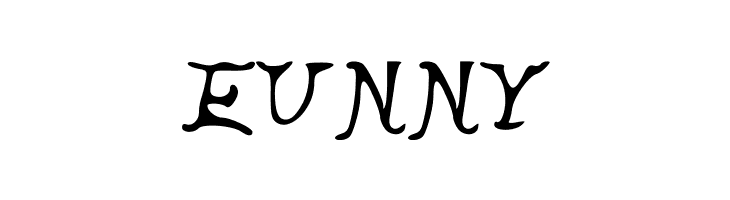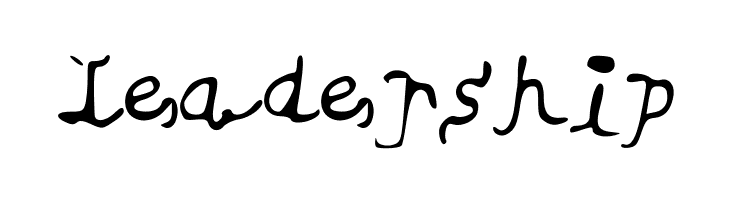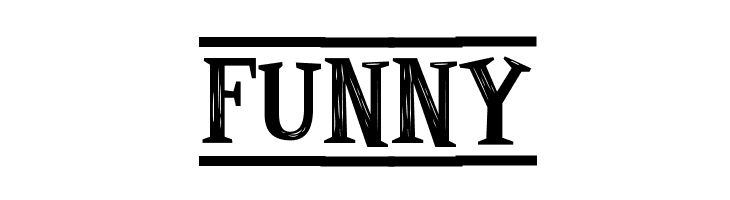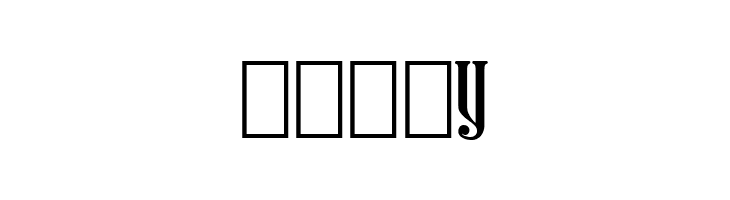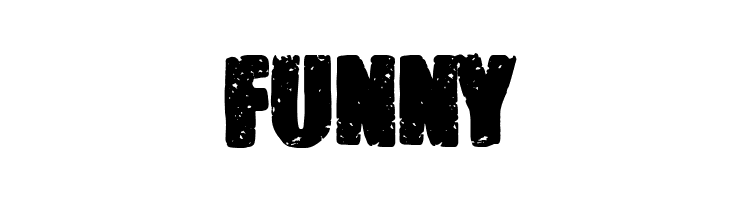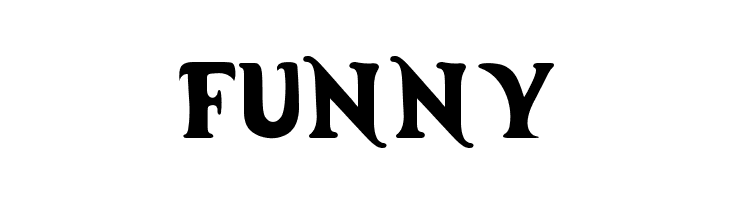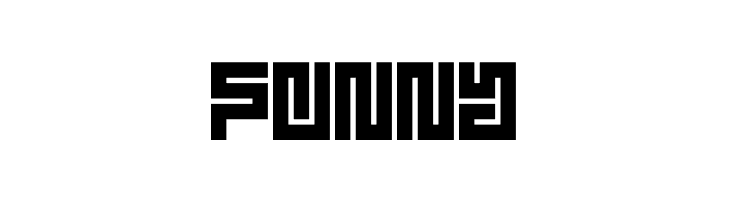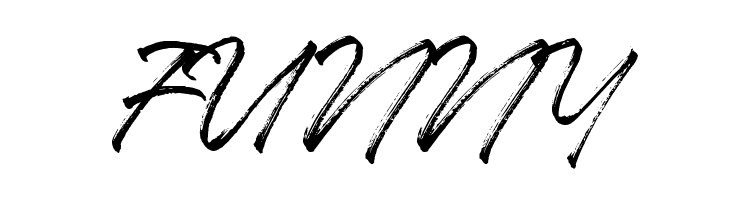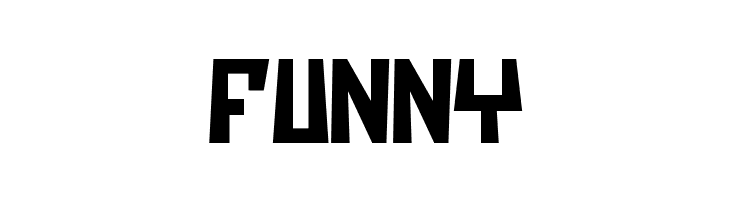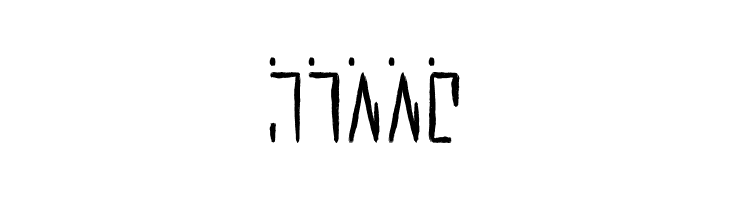
An elegant, cursive font with flowing, ornate letters.
A bold, distressed font with a vintage, textured appearance.
An artistic, ancient-inspired font with flowing, decorative forms.
A dynamic, expressive handwritten font with fluid strokes and natural flow.
A bold, vintage-style font with decorative strokes and a hand-drawn appearance.
A futuristic, angular font with a robotic and mechanical aesthetic.
A bold, angular serif font with ancient Greek and Roman influences.
A bold, geometric font with sharp angles and a blocky appearance.
A bold, ancient-inspired font with geometric shapes and intricate detailing.
Decorative font with ancient classical head illustrations.
A bold, decorative blackletter font with high contrast and ornate details.
A bold, distressed font with a rugged, ancient appearance.
A bold, geometric font with a futuristic, digital aesthetic.
A bold, angular font with a modern geometric style.
A jagged, rune-like font with a mystical and ancient appearance.
A bold, dramatic font with angular serifs and sweeping strokes.
Ancient-themed dingbat font with detailed line art illustrations.
Pictorial, decorative font based on ancient Egyptian hieroglyphs.
A font inspired by ancient Greek inscriptions with angular, geometric letterforms.
An ornate, historical font with intricate decorative elements and a vertical emphasis.
A runic-inspired font with angular, mysterious characters and tight spacing.
Ornamental symbol font with ancient and geometric motifs.
A bold, expressive font with brush-like strokes and dynamic forms.
A vintage, calligraphic font with a textured, ancient manuscript style.
A bold iconographic font composed of clear, playful pictograms.
A bold, modern font with angular edges and a striking presence.
A bold, textured font with a vintage, rugged appearance.
A charming script font with elegant, flowing lines and smooth curves.
A playful, decorative font with unique patterns and textures in each letter.
A bold, brush-style font with an expressive and artistic appearance.